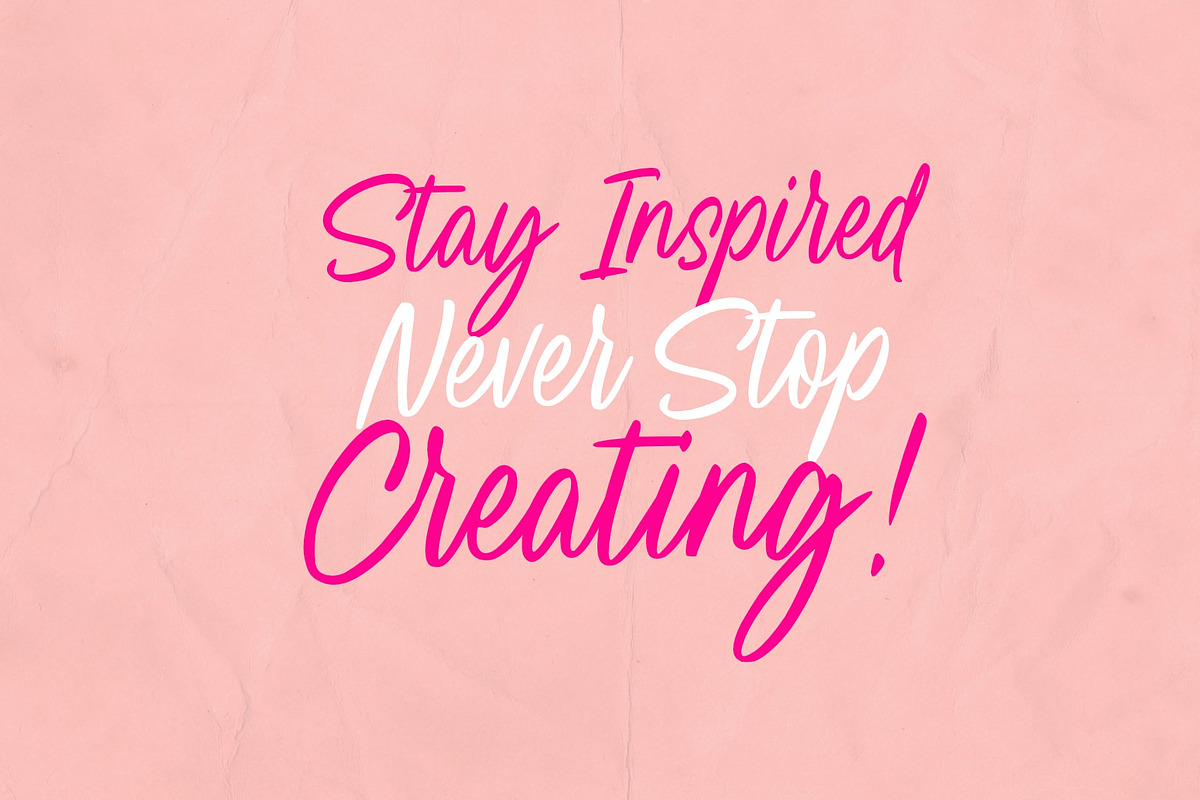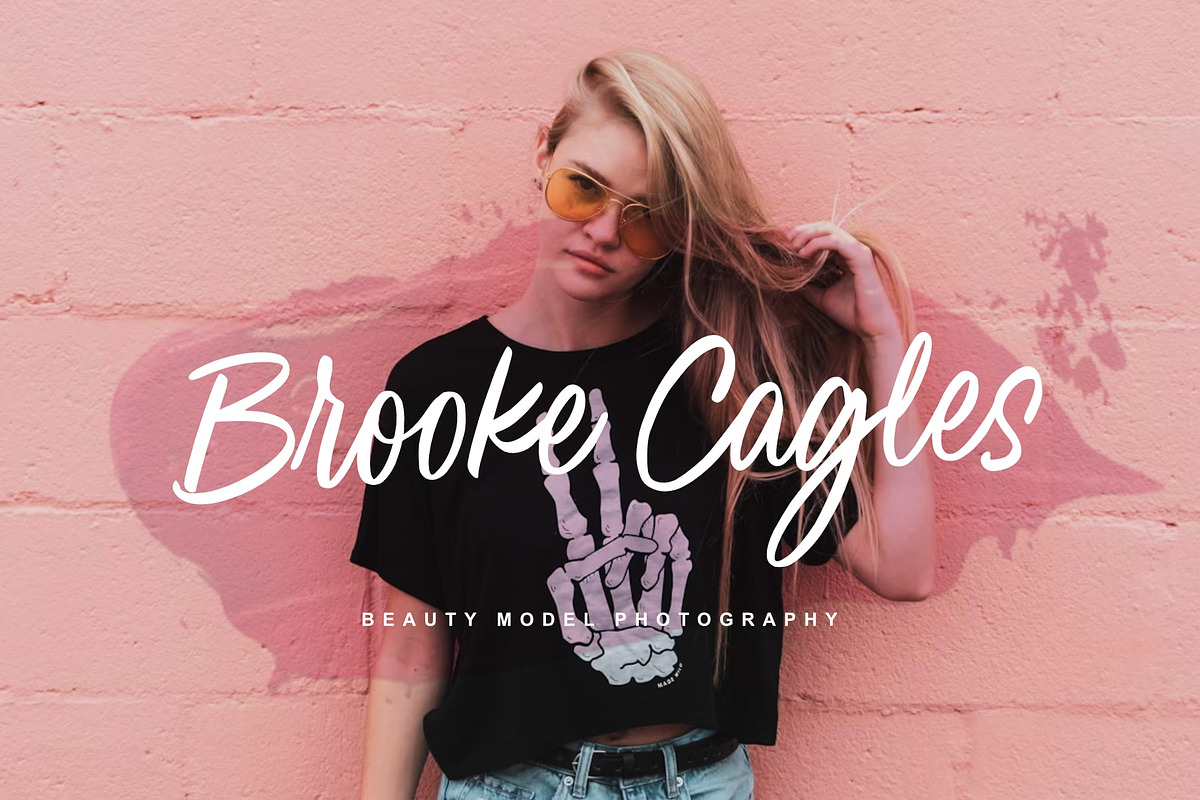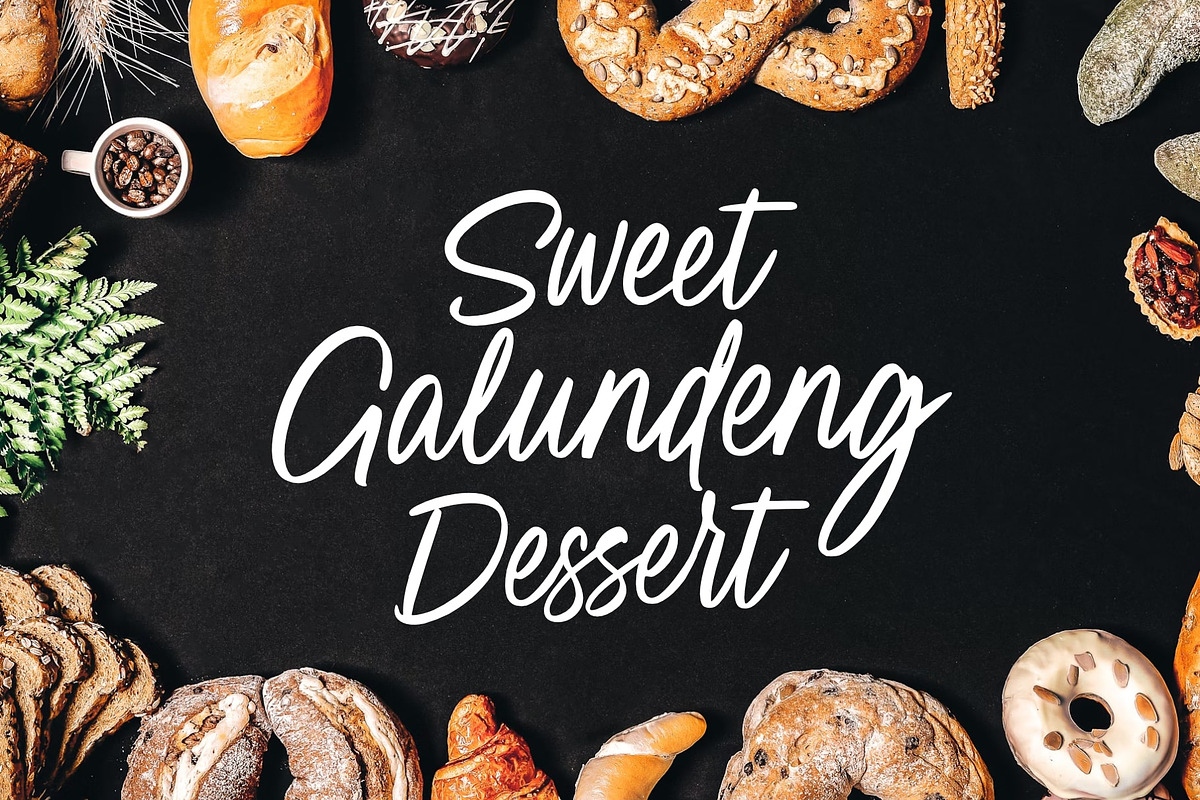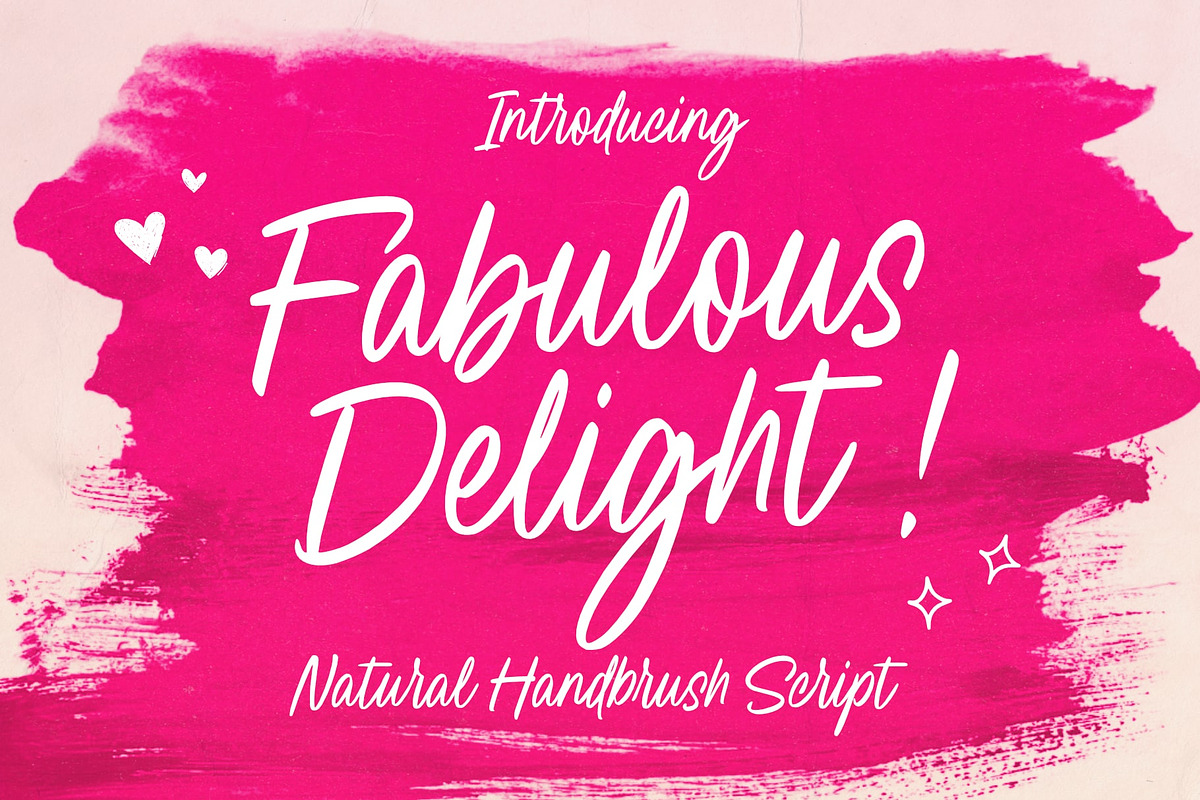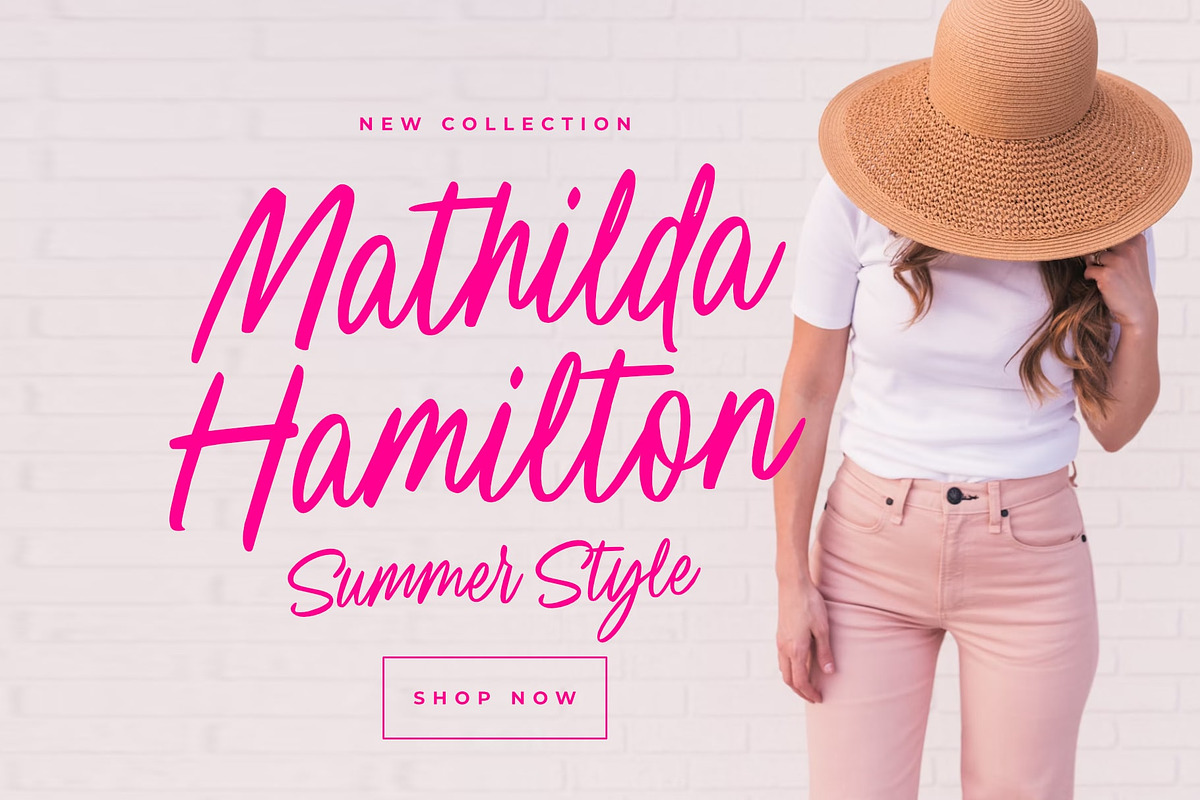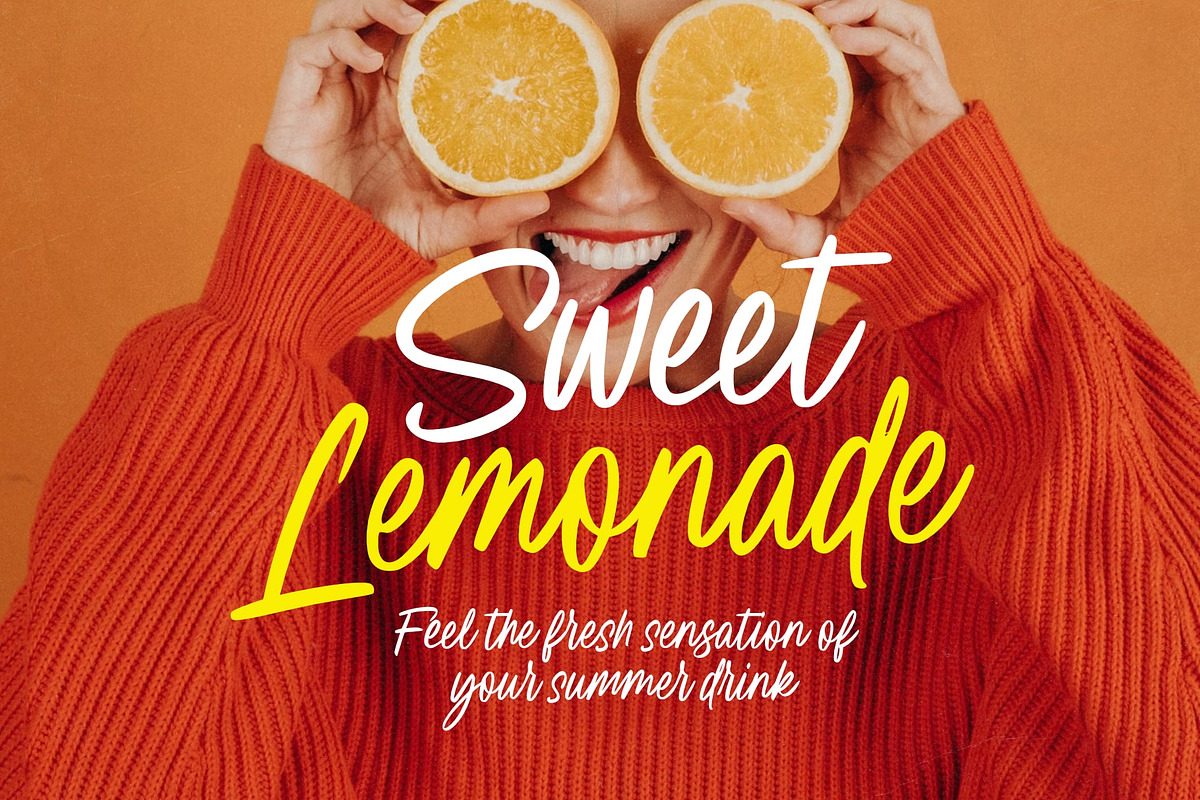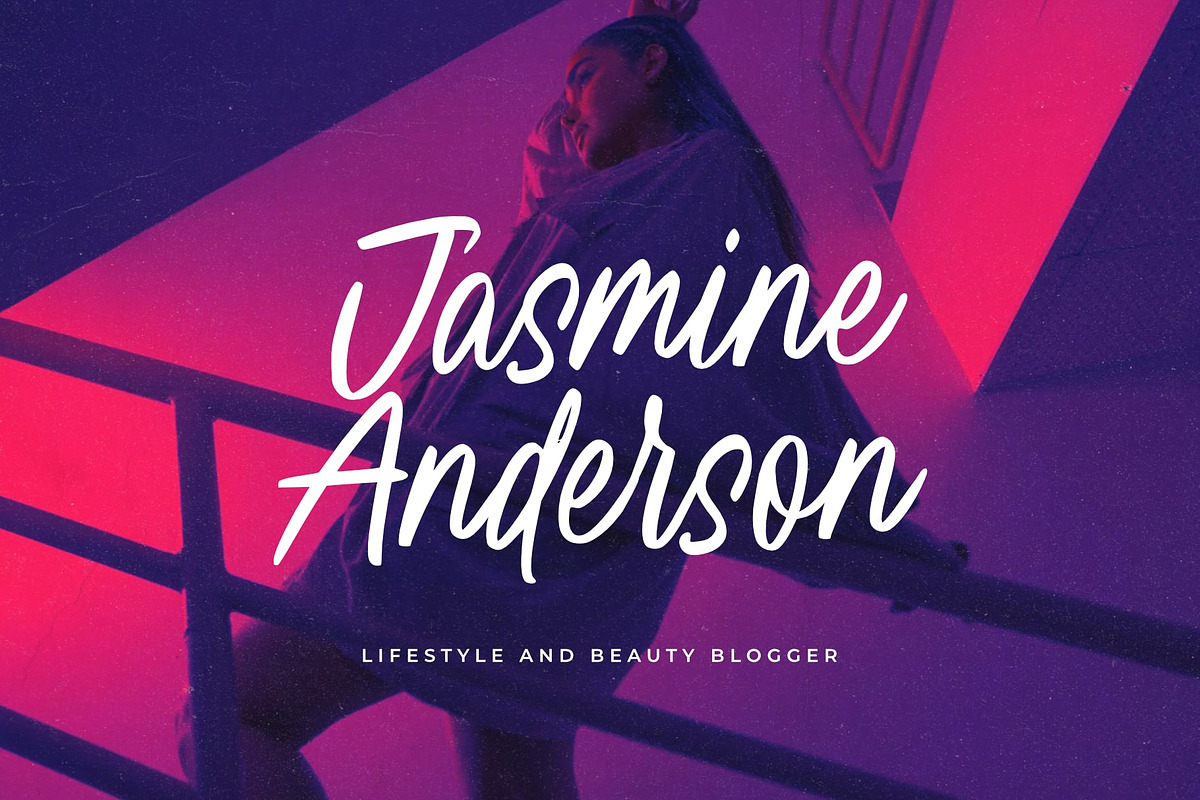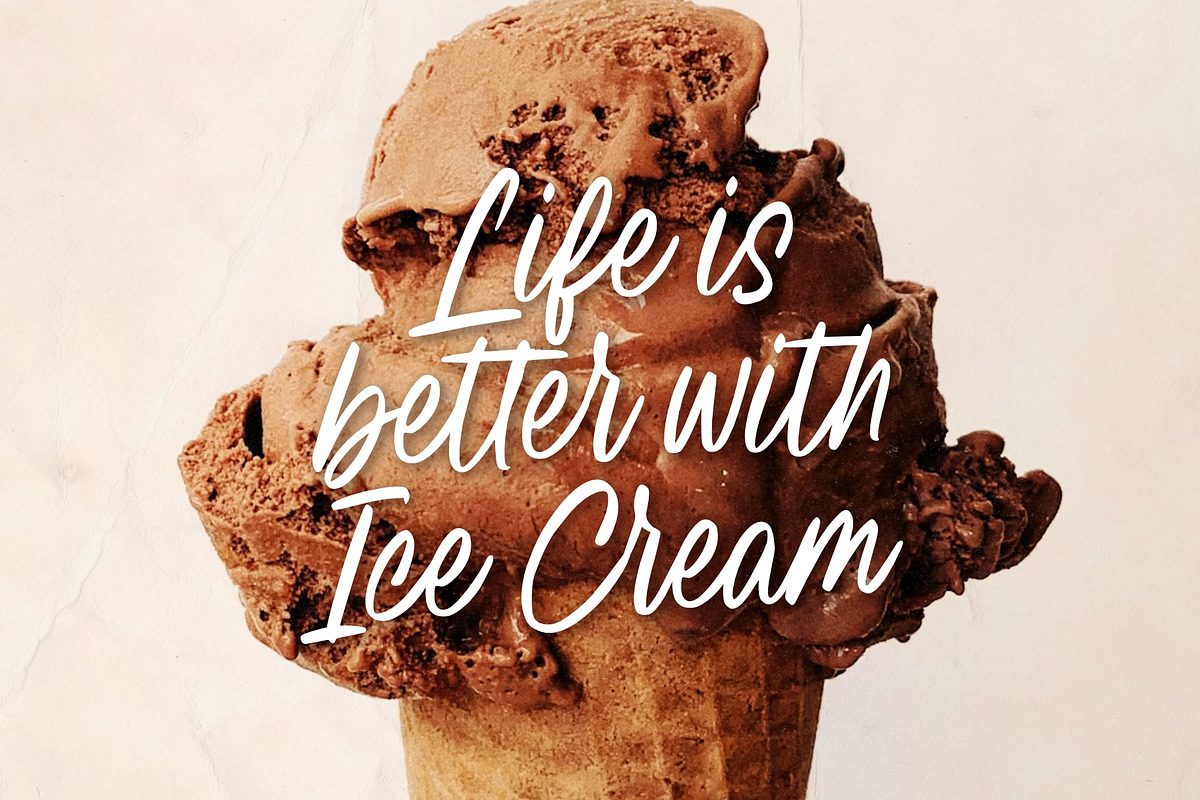
Fabulous Delight Handwritten Script
Immerse in the captivating allure of Fabulous Delight - a handwritten script font saturated with charm and charisma. Distinguished by its playful strokes and elegant letterforms, this font infuses your designs with a unique blend of joy and sophistication. Drawing its inspiration from the raw beauty of handwritten expression, Fabulous Delight seamlessly bridges the gap between youthful spontaneity and tasteful refinement. This font is the go-to choice for projects that seek to harmonize a sense of fun with an air of grace.